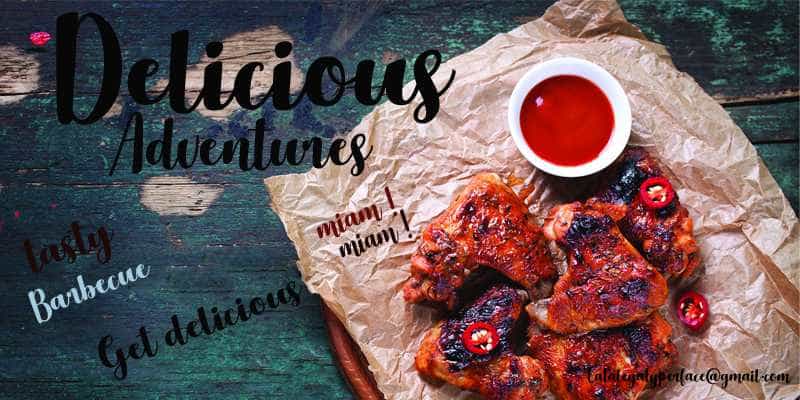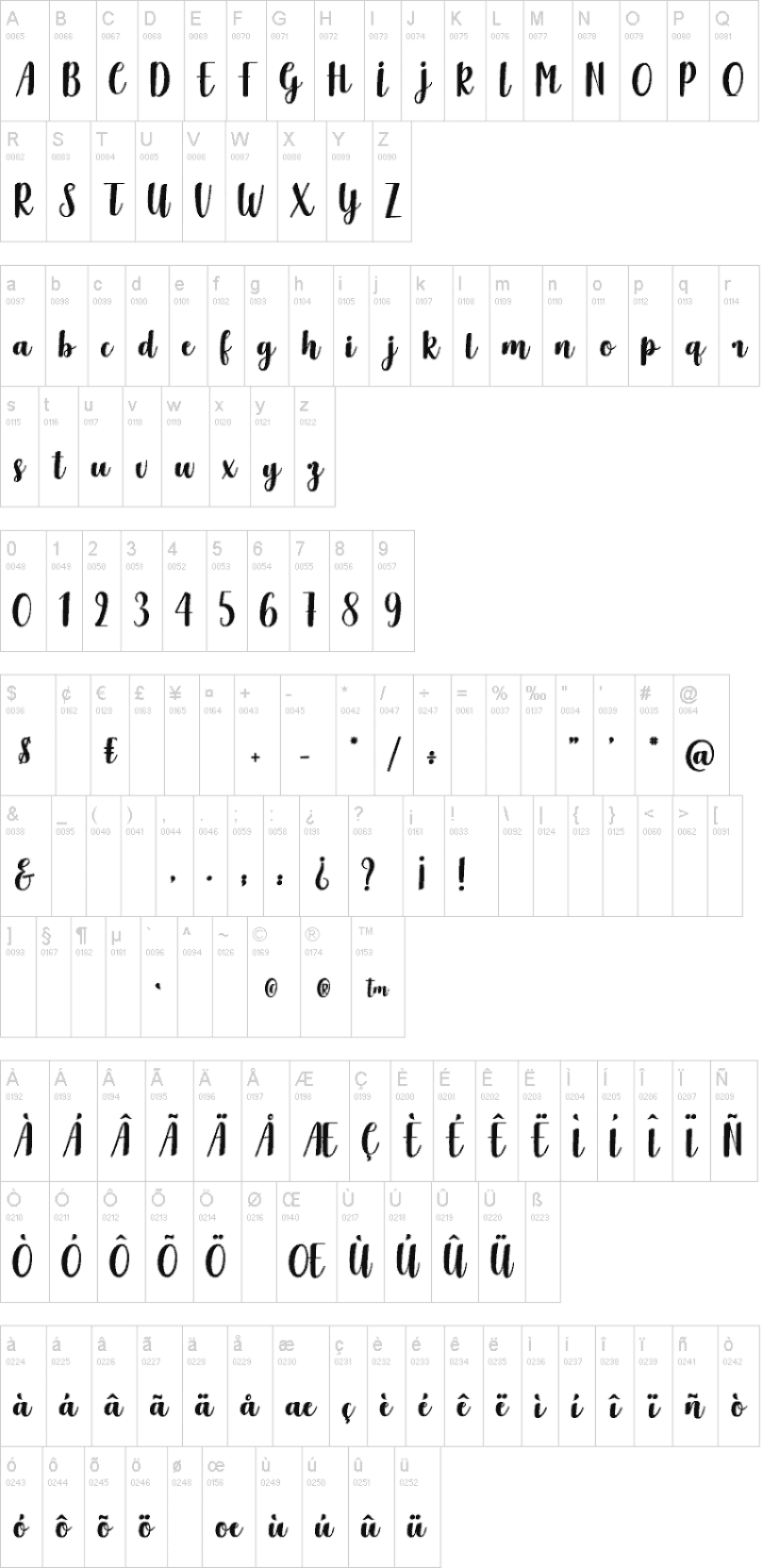
Discover Delicious Adventures Font, part of the Brush collection—a versatile and unique font perfect for adding a personal touch to your projects. Download it for free and enjoy crafting designs with style, from invitations to social media posts. This font is available exclusively for personal use, giving you the freedom to create without limits. Unlock your creativity with Delicious Adventures Font today!
Delicious Adventures is a delicious font to brush the high quality designed by Cat. B The website is free and allows to download files for personal use. Interestingly there is free one that allows uppercase letters and some special symbols only.